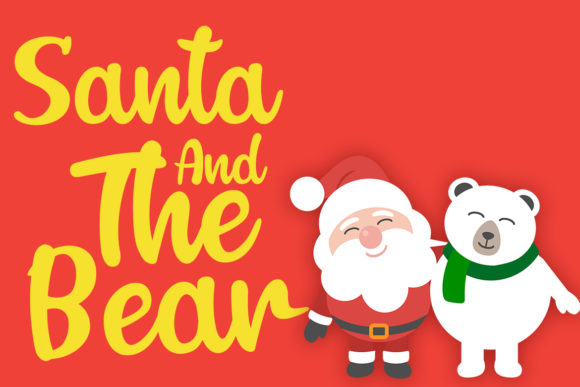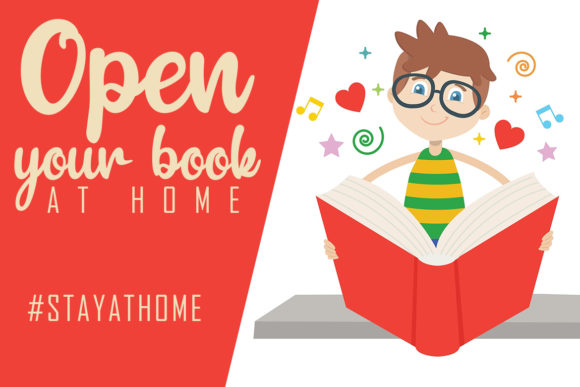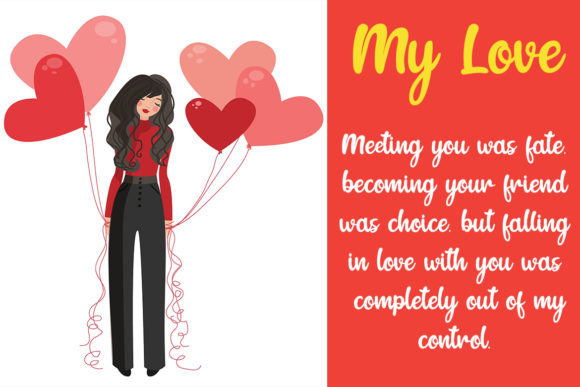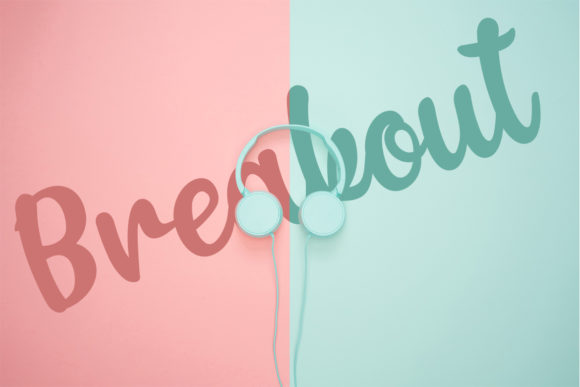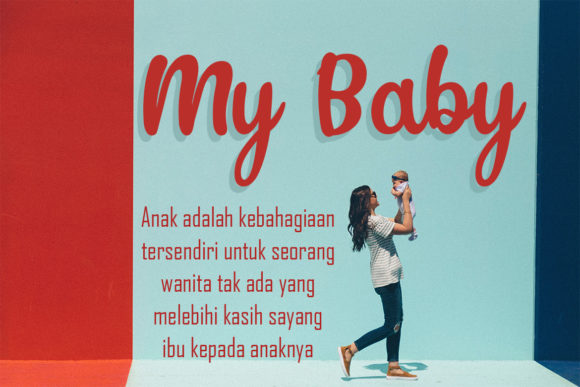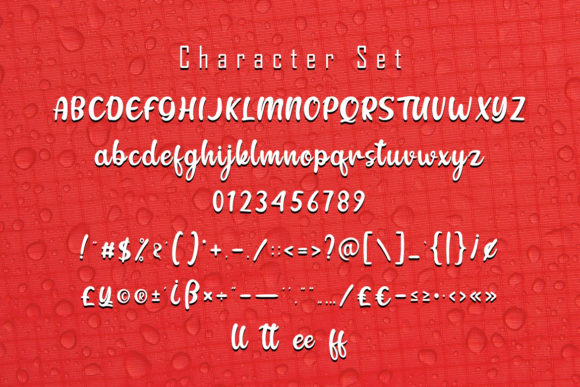
Introduction to Sellky Font
Sellky is a cute and bold handwritten font.
This fantastic font is best suited for headlines of all sizes, as well as for blocks of text that have both maximum and minimum variations Whether itโs for web, print, moving images or anything else โ Sellky will look spectacular.